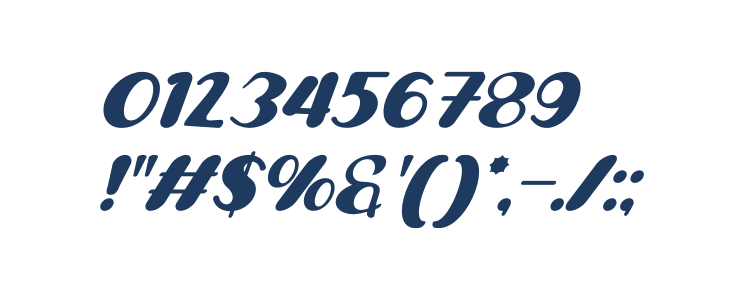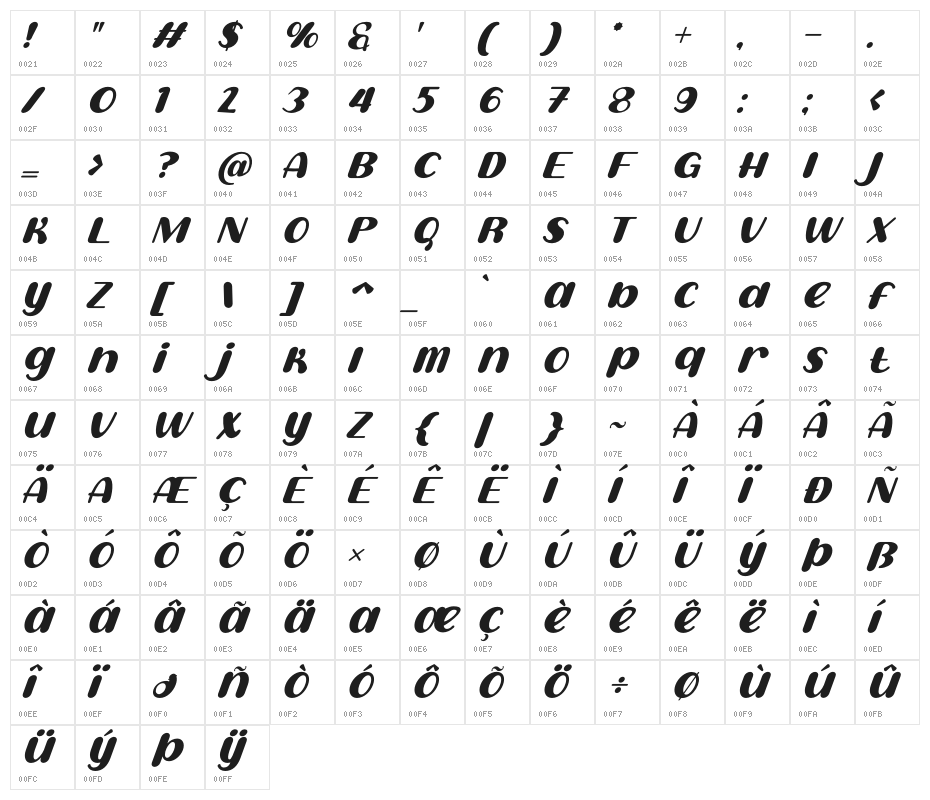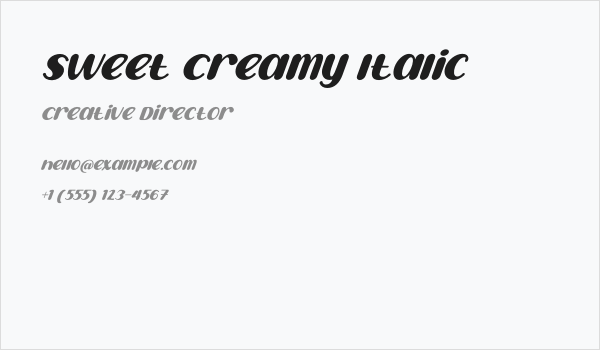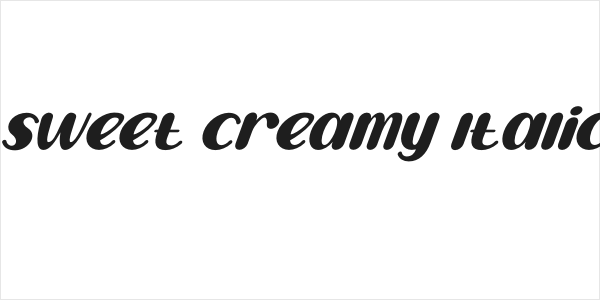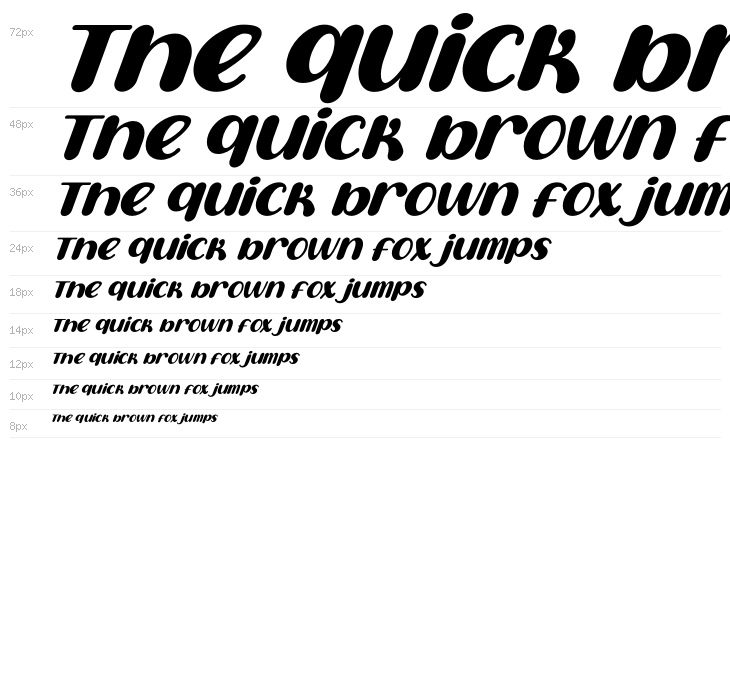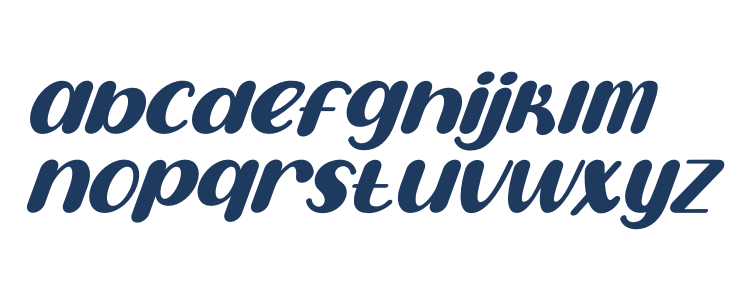
Sweet Creamy Italic Font
Sweet Creamy Italic Description
This font exudes a playful and dynamic character with its bold and italicized strokes. The letters are crafted with a smooth, flowing style that gives a sense of movement and energy. The uppercase and lowercase letters maintain a consistent style, with rounded edges and a slight slant that enhances its italic nature. The numbers and special characters are equally expressive, matching the overall aesthetic. This font's boldness makes it stand out, while the italic slant adds a touch of elegance and flair. It's perfect for projects that require a lively and engaging typeface.
| Overall Style | Playful, Dynamic |
| Proposed Projects | Ideal for branding, packaging, posters, and any creative projects that need a lively and engaging typeface. |